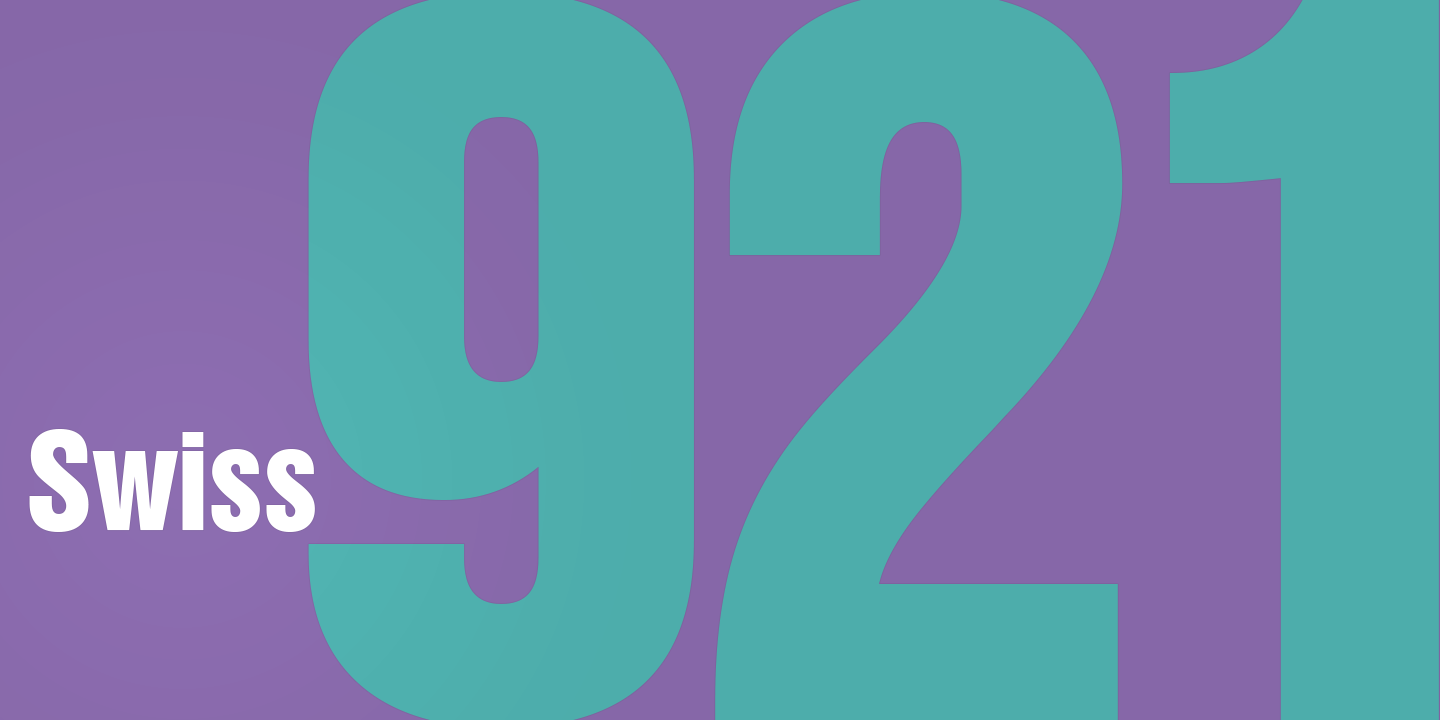
Swiss 921 Font is a refined sans-serif typeface that exemplifies Swiss design principles with exceptional clarity and geometric precision. This font is available for commercial use and must be purchased for business applications. You can download it for free for testing purposes only.
Swiss 921 Font excels in numerous design applications including corporate branding, annual reports, technical documentation, architectural drawings, medical publications, scientific journals, user interface design, wayfinding systems, transportation signage, and minimalist layouts. Its neutral character makes it perfect for information-heavy designs requiring maximum legibility.
What makes Swiss 921 Font so exciting is its perfect embodiment of Swiss typography principles, featuring clean geometric forms, optimal letter spacing, and exceptional readability that maintains clarity across all sizes and applications. The font's systematic approach to design creates professional credibility while ensuring functional excellence in complex information hierarchies.
The Swiss 921 Font family includes comprehensive weight variations: Ultra Light, Light, Regular, Medium, Bold, Black, and their corresponding condensed versions, plus matching italic styles. Each family member maintains consistent geometric relationships while offering different levels of emphasis, providing designers with extensive typographic flexibility for systematic design approaches.
This exceptional typeface represents the pinnacle of Swiss design methodology and functional typography, making Swiss 921 Font Free Download an essential tool for professional designers. The font's systematic construction works exceptionally well in corporate environments where clarity, neutrality, and professional credibility are fundamental requirements.
Swiss 921 Font supports extensive international character sets including Western European, Central European, and Cyrillic scripts, plus comprehensive mathematical symbols and technical characters. Its advanced OpenType features ensure professional typography standards across scientific, technical, and corporate applications worldwide.
Professional designers choose Swiss 921 Font for its reliability in complex information design, corporate communications, and technical documentation. The font's neutral character makes it ideal for healthcare, technology, engineering, and financial sectors where clarity and trustworthiness are crucial considerations.
The font's systematic design and functional excellence make it particularly suitable for hospitals, technology companies, engineering firms, pharmaceutical companies, and research institutions. Its timeless Swiss design approach ensures longevity while maintaining contemporary relevance across evolving professional standards.